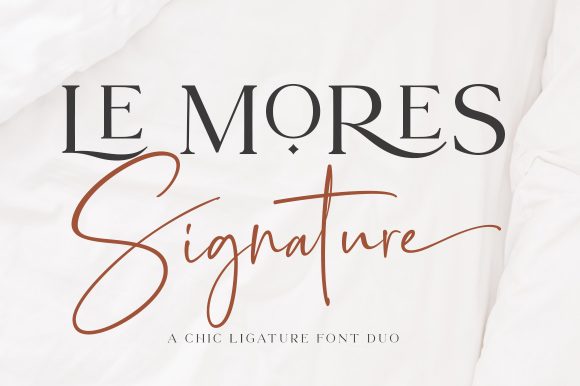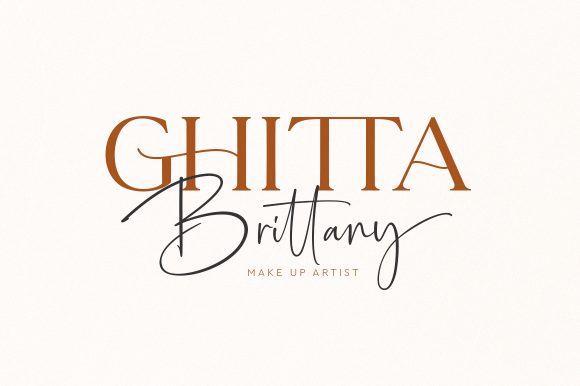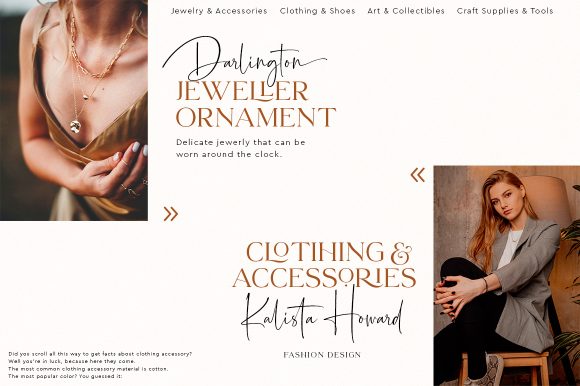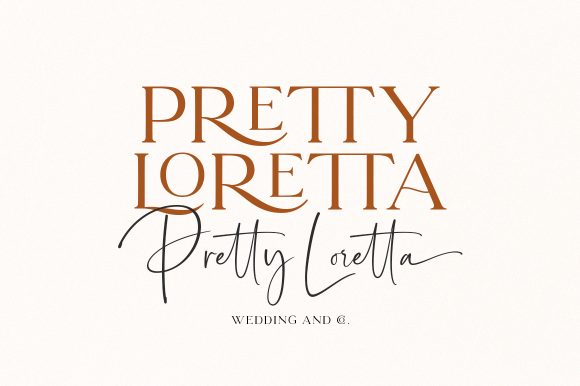
Le Mores Signature Font
About the Le Mores Signature Font
Add a touch of class to your work with the Le Mores Signature Font, a truly exceptional typeface. Le Mores Signature is an elegant and assertive duo font (serif and script). It will add a luxury spark to any design project that you wish to create! This font is PUA encoded which means you can access all of the amazing glyphs and ligatures with ease!
Le Mores Signature’s elegant serif and expressive script work best in headlines, logos, and short-form text for branding projects, invitations, or luxury packaging. Its assertive nature makes it less suitable for body text or UI elements where readability over extended lengths is crucial. Avoid using it for large blocks of text.
The font’s inherent sophistication is best complemented by pairings with clean sans-serif fonts like Montserrat or Open Sans for a modern contrast, or a classic serif like Garamond for a more traditional feel. For a touch of playful contrast, consider pairing the script with a geometric sans-serif such as Futura.
Its overall personality is sophisticated and assertive, lending itself to brands projecting luxury, exclusivity, or a timeless quality.
Le Mores Signature Font Usage Examples
Le Mores Signature Font Example